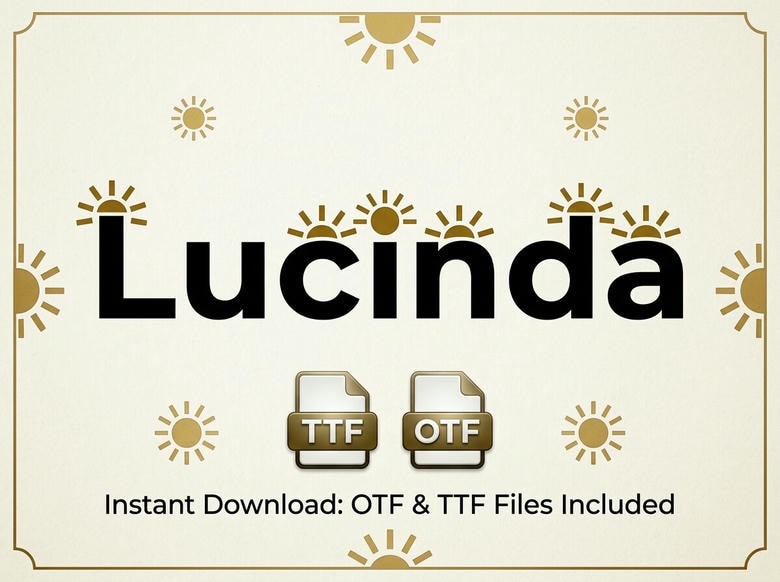
Lucinda Font
Lucinda is an attractive ornamental display font, which is meant to be the focal point. With its distinctive artistic features and a powerful visual character, this typeface can be chosen by designers who can no longer afford to be the same. It has detailed elements and innovative letterforms which are perfect in high-impact designs where the type has to do the talking.
This font provides an immediate wow effect to any project whether you are creating a modern poster, a unique brand identity, or some content that is eye catching on social media. The font is flexible to be used in bold headlines, art logos and creative packaging, and it is professional and well-polished.